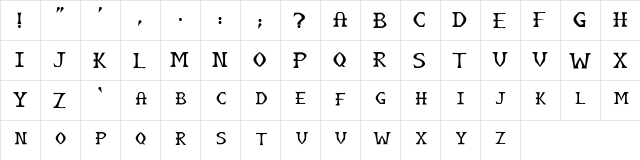
Midian Regular
Design Context for Midian Typeface
Midian is a composed and adaptable typeface that performs quietly and consistently across a wide range of design contexts.